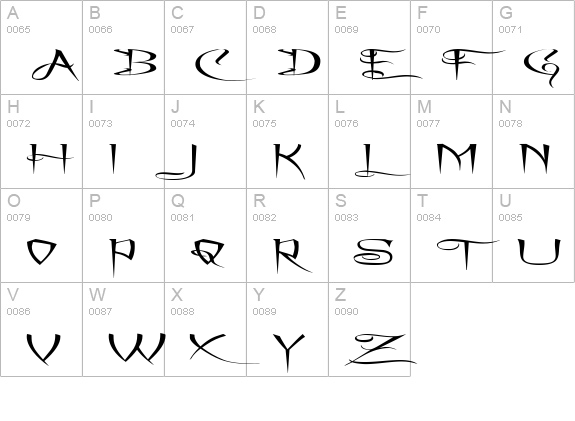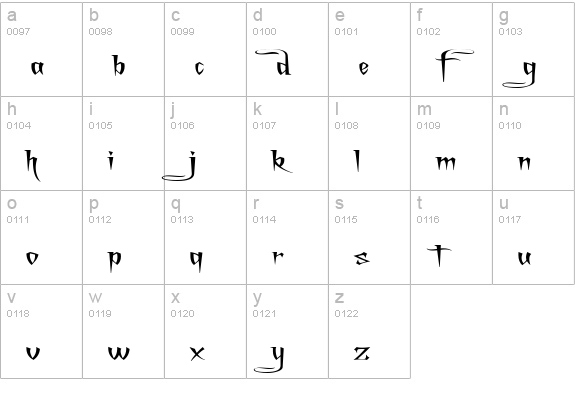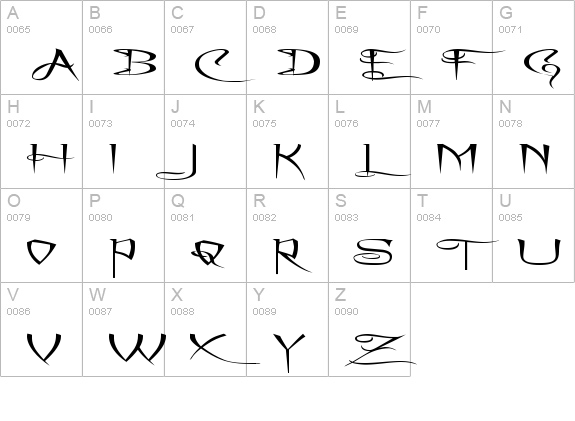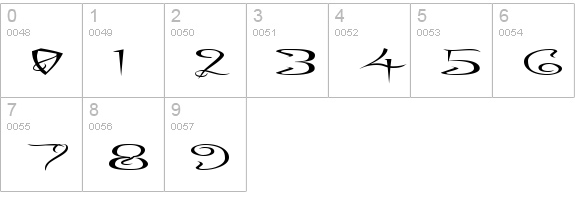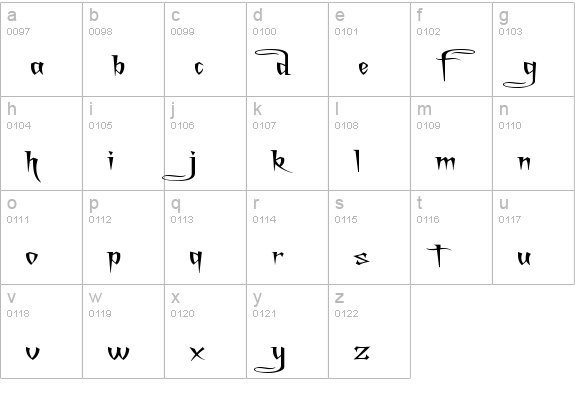
Introducing A Charming Font Superexpanded, a delightful and enchanting typeface that is sure to captivate and inspire. This font is the epitome of charm, with its elegant and graceful letterforms that exude a sense of whimsy and sophistication. A Charming Font Superexpanded is perfect for any project that requires a touch of magic. Whether you're designing invitations for a fairytale wedding, creating a logo for a whimsical brand, or adding a touch of charm to your personal correspondence, this font is sure to add a touch of enchantment to your work. The Superexpanded version of A Charming Font takes the charm to a whole new level. With its elongated and exaggerated letterforms, this font is bold, eye-catching, and truly unique. It commands attention and makes a statement, making it perfect for headlines, titles, and any design that requires a touch of drama. And the best part? A Charming Font Superexpanded is available for free! That's right, this enchanting font can be yours at no cost. Simply visit FontsMarket.com, where you can freely download this font and start adding a touch of charm to your designs. So why wait? Let A Charming Font Superexpanded cast its spell on your next project. Download it for free today and let the magic begin.